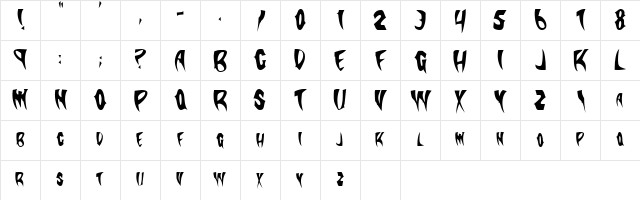
SlasherCondensed Regular
Design Context for SlasherCondensed
SlasherCondensed is a composed and adaptable typeface that performs quietly and consistently across a wide range of design contexts. Its narrow stance lets it pack a punch even in space-constrained designs.